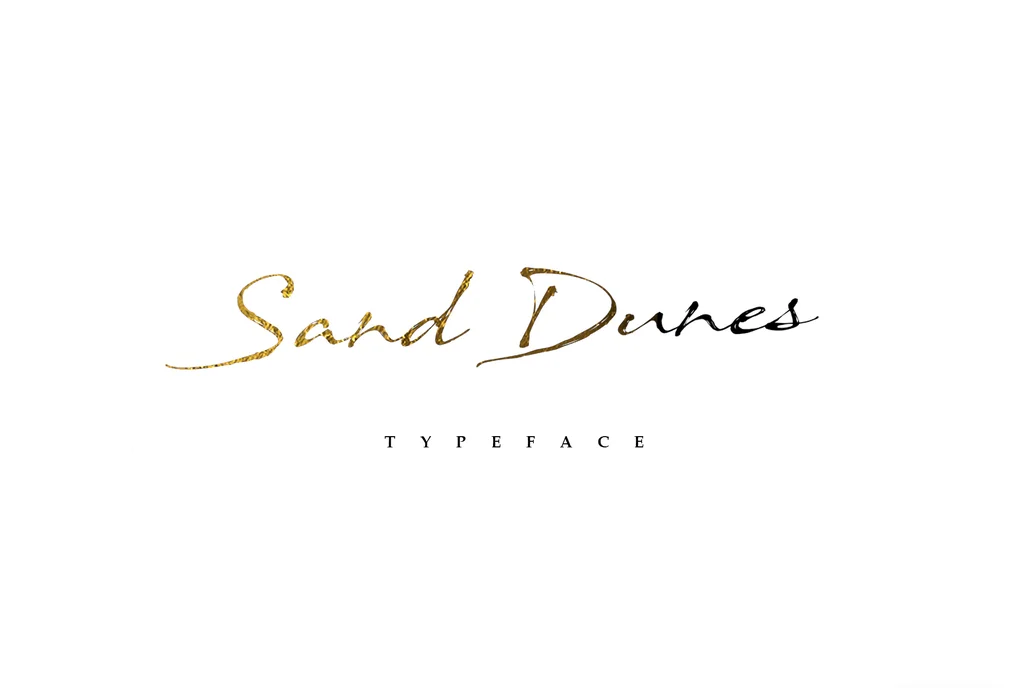
Sand Dunes Font
Sand Dunes Font is perfect for desert-themed branding, travel and tourism designs, natural product packaging, outdoor adventure marketing, earthy cosmetic labels, organic food branding, landscape photography watermarks, environmental campaign materials, wellness retreat promotions, artisan craft labels, bohemian fashion designs, and any design project requiring a warm and natural aesthetic.
What makes Sand Dunes Font exciting is its organic character that evokes the serene beauty of desert landscapes and natural formations. The font's flowing letterforms capture the essence of wind-swept sand and timeless natural elegance, making it ideal for brands emphasizing sustainability, natural authenticity, and connection to earth. Its warm presence creates a calming visual experience that resonates with audiences seeking organic and mindful lifestyle choices.
The Sand Dunes Font family typically includes uppercase and lowercase characters, numerals, punctuation marks, and textured variations that enhance its natural and earthy appeal.